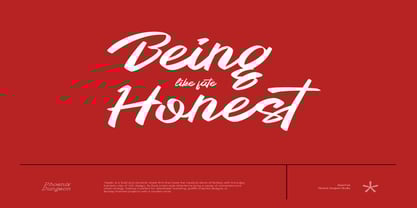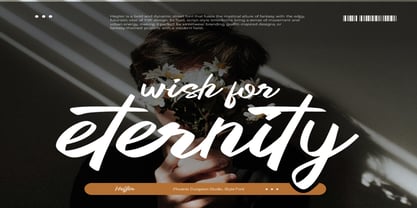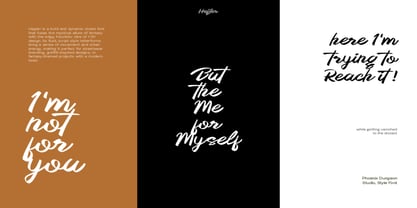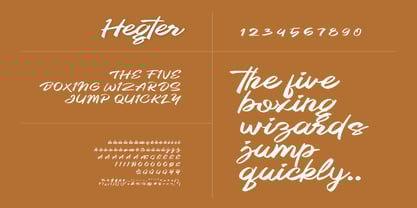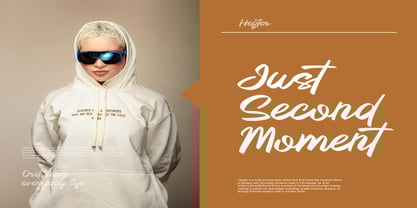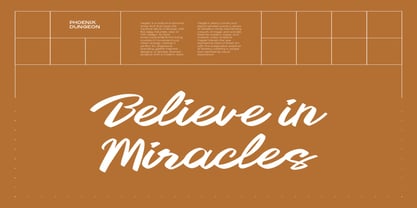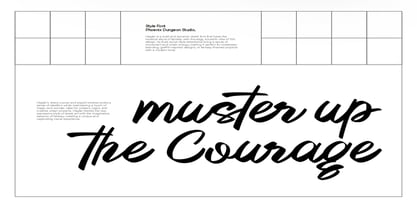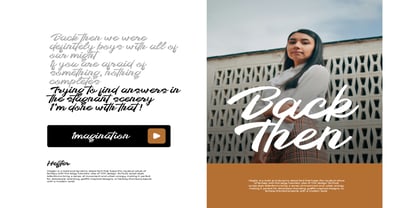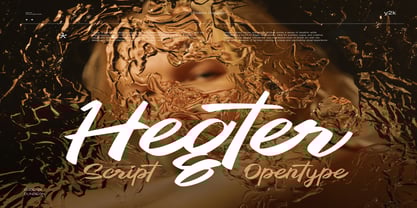
Hegter
by Phoenix Group
The Hegter Font Family was designed by Alif Naufal Muzakki and published by Phoenix Group. Hegter contains 1 styles. More about this family
Hegter – Script bold street style romance is a powerful and expressive typeface that merges the raw energy of urban culture with the elegance of romantic script lettering. With its bold strokes, graffiti-inspired detailing, and flowing script structure, Hegter brings a sense of movement, emotion, and rebellion to any visual project. Whether used in branding for streetwear, music visuals, or animated content, this font adds a layer of authenticity and visual flair that enhances the overall design experience. Each character in Hegter mimics the dynamic strokes of real graffiti markers and ink pens, giving it a tactile and expressive presence that feels both spontaneous and intentional. Despite its intense visual style, Hegter maintains clarity and legibility, especially in large-scale applications such as posters, apparel branding, and digital banners.
Designers: Alif Naufal Muzakki
Foundry: Phoenix Group